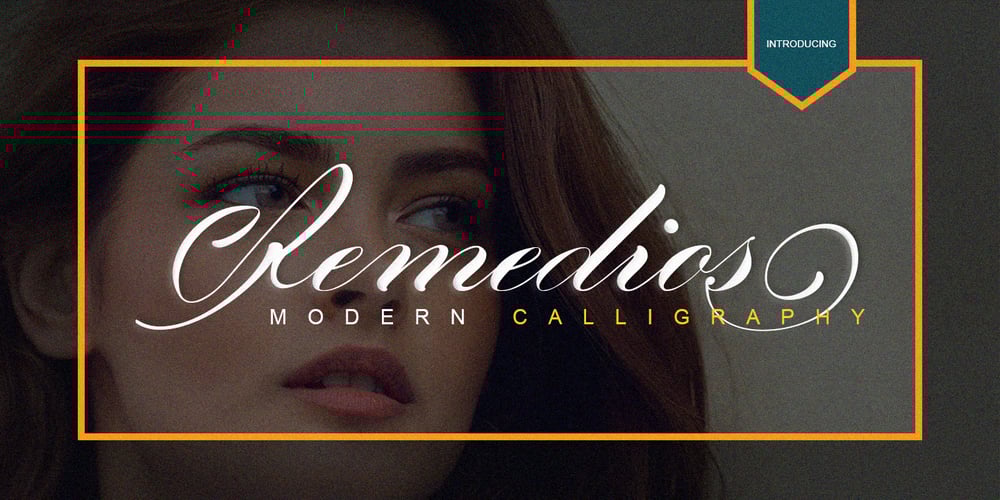
Remedios Font Family was designed by Afrizal Hidayat and published by ejhaa. Remedios contains 2 styles and family package options. Remedios, is a full-featured and elegant script font with many alternative characters and OpenType features. Handwritten in heavy italics, Remedios is perfect for invitations, branding, and editorial designs.Remedios comes with specific OpenType features including contextual changes, style changes, initial and final forms, several alternative glyphs for multiple letters (accessed via the glyph panel), multilingual support (including several currency symbols), and standard numbers.